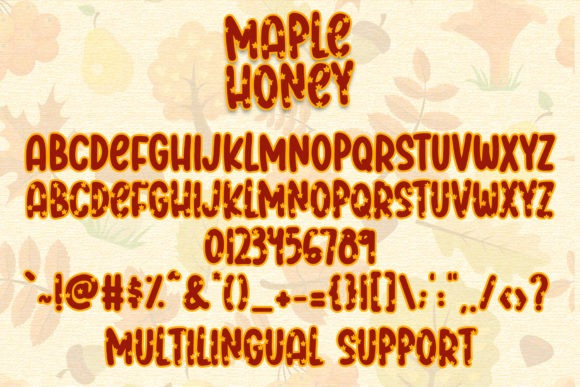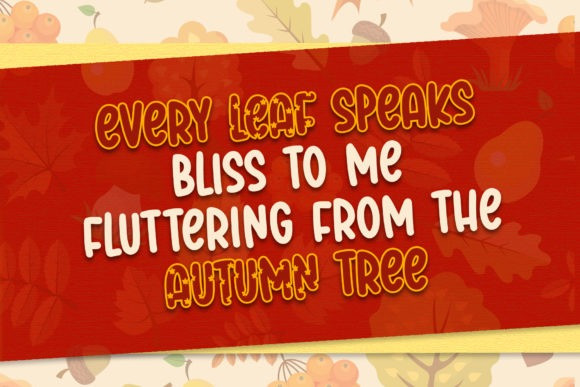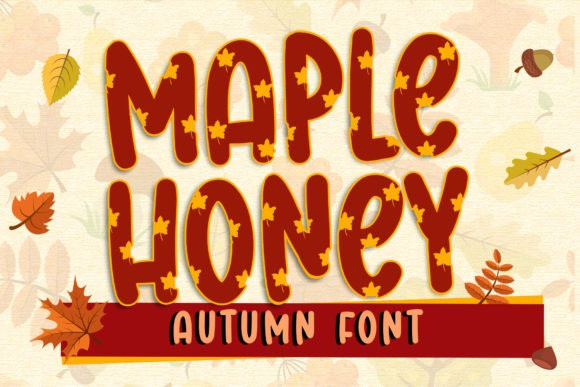
Maple Honey Font
Maple Honey Font is a chunky lettered display font. Its friendly feel makes this font incredibly versatile, fitting a wide range of contexts. Add it to your creative ideas and notice how it makes them stand out!